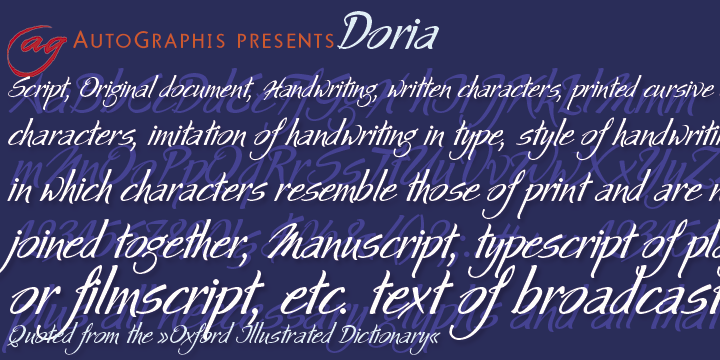
Doria
Font Family by Autographis
Doria was developed from my handwritten script Xan that has a definite Japanese touch.
By making Doria really slick it became a font that is perfect to be used on labels and for many packaging jobs.